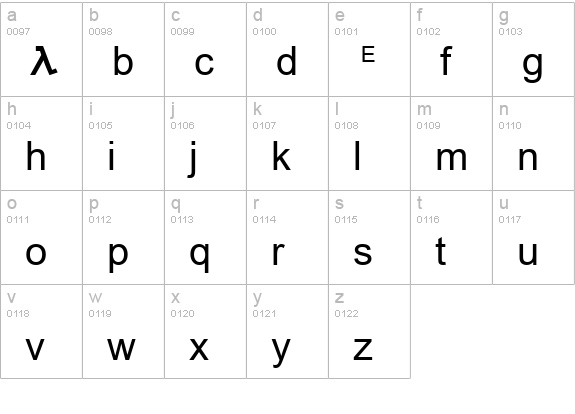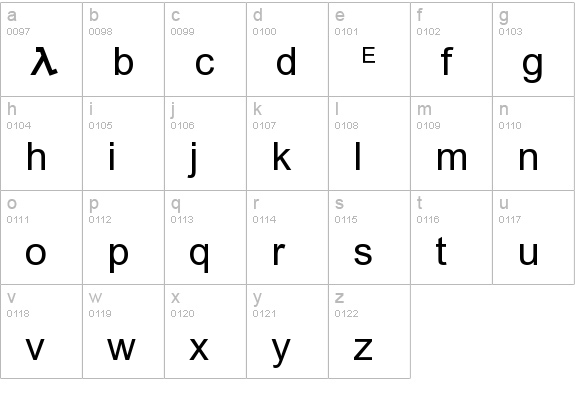
HalfLife Font Details
Introducing HalfLife font, a bold and dynamic typeface that will revolutionize your design projects. With its sleek and modern appeal, HalfLife is the perfect choice for creating eye-catching headlines, striking logos, and captivating promotional materials. This versatile font boasts a unique combination of sharp edges and smooth curves, giving your text a distinct and contemporary look. Whether you're designing for print or digital media, HalfLife will effortlessly add a touch of sophistication and professionalism to your creations. What's even better is that HalfLife is completely free! That's right, this exceptional font is available for you to download at no cost at FontsMarket.com. We believe in making great design accessible to everyone, and we're thrilled to offer HalfLife as a freely available resource. So why wait? Elevate your designs with HalfLife font and make a bold statement that will leave a lasting impression. Download it today and unlock a world of creative possibilities at FontsMarket.com.